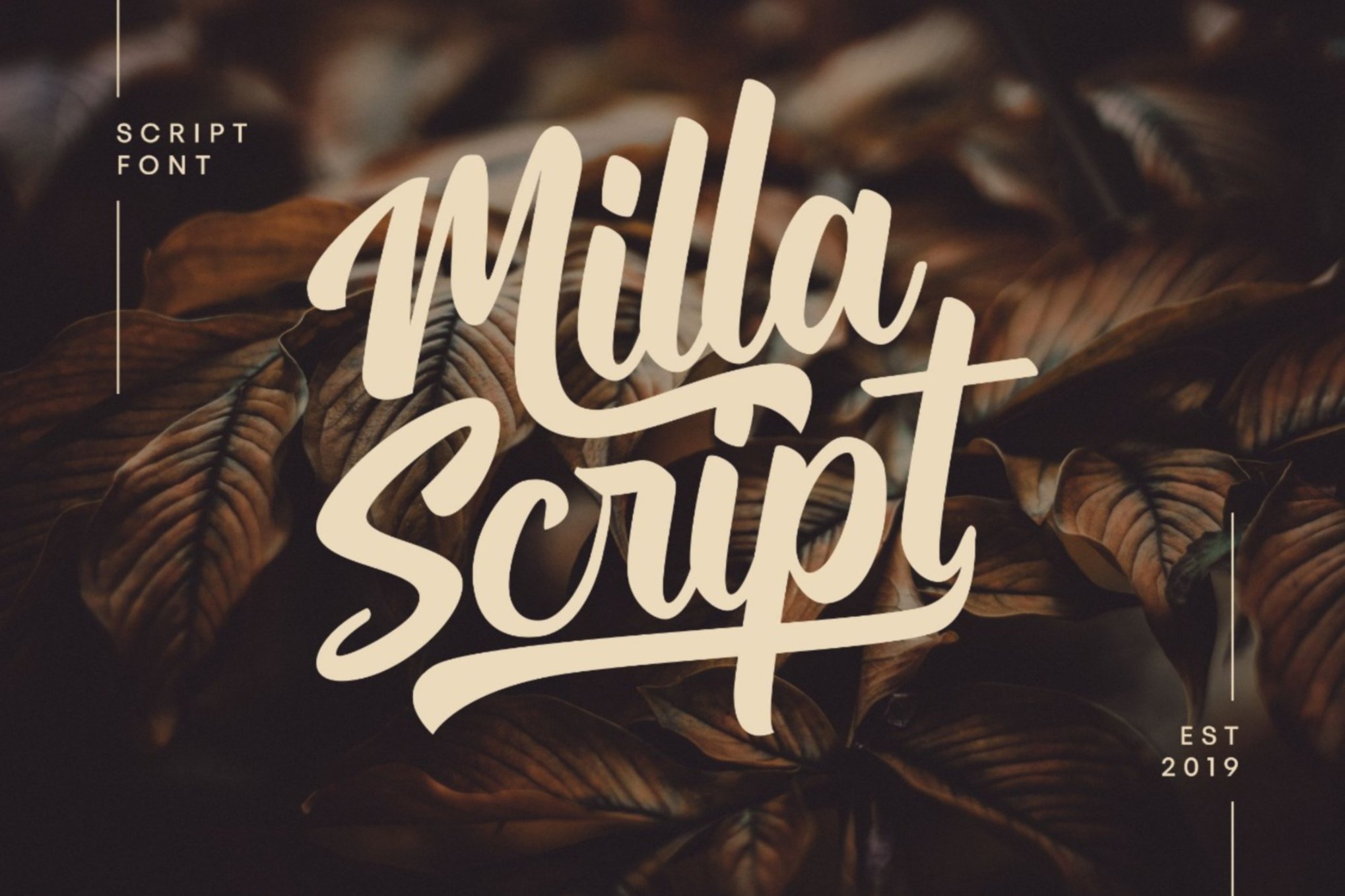
Milla - Script Font
Milla Script Font is perfect for elegant wedding invitations, luxury fashion branding, sophisticated beauty campaigns, graceful stationery design, refined boutique signage, personal calligraphy services, intimate greeting cards, upscale lifestyle marketing, and feminine brand identities.
What makes Milla Script Font exciting is its exquisite embodiment of handwritten elegance that captures the personal touch and graceful sophistication of master calligraphy through flowing, refined letterforms that seem to dance with feminine charm. The font features delicate connecting strokes with carefully balanced curves that create an atmosphere of intimacy and refined beauty, evoking the timeless appeal of handwritten correspondence and personal expression. Its graceful character and sophisticated script details make it perfect for brands that want to communicate elegance, femininity, and the personal attention that distinguishes truly exceptional experiences while creating memorable connections that celebrate the art of beautiful communication.
Milla Script Font family includes various elegant script weights such as Light, Regular, and Bold variations, often featuring graceful stylistic alternates and feminine decorative elements. The family may include delicate swashes, elegant ligatures, and sophisticated ornamental features that enhance the font's calligraphic aesthetic, providing designers with comprehensive options for creating beautiful typographic compositions that honor the tradition of fine handwriting and elegant expression.